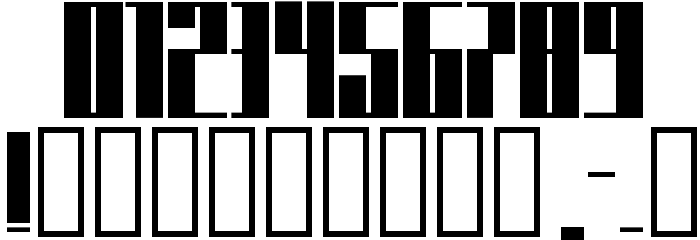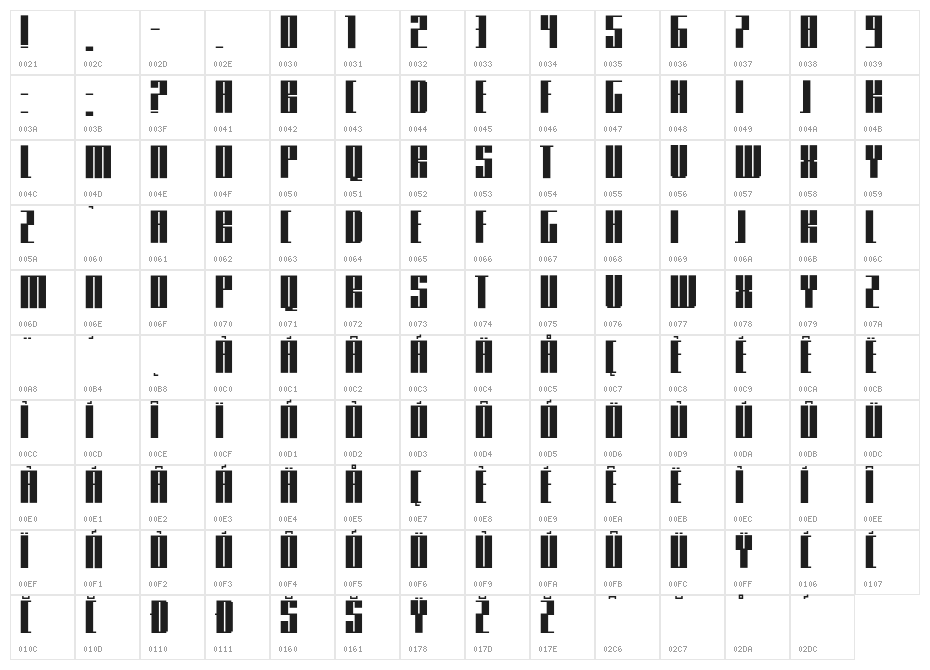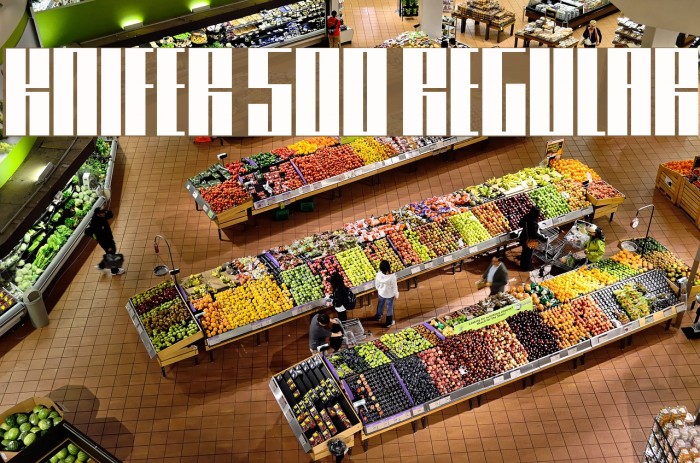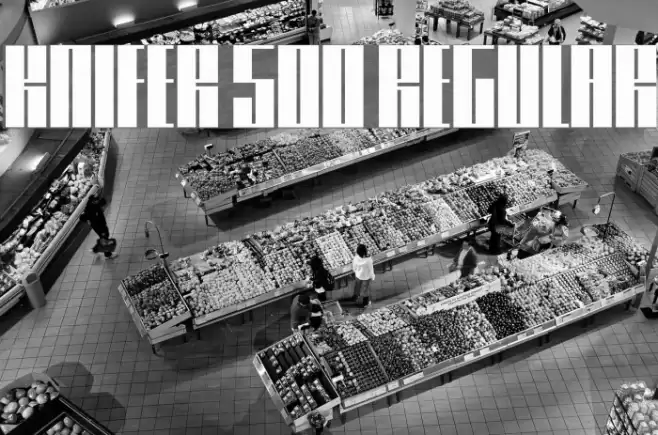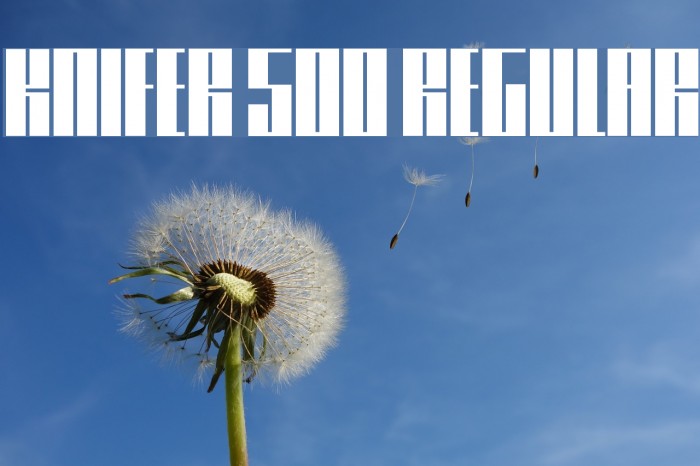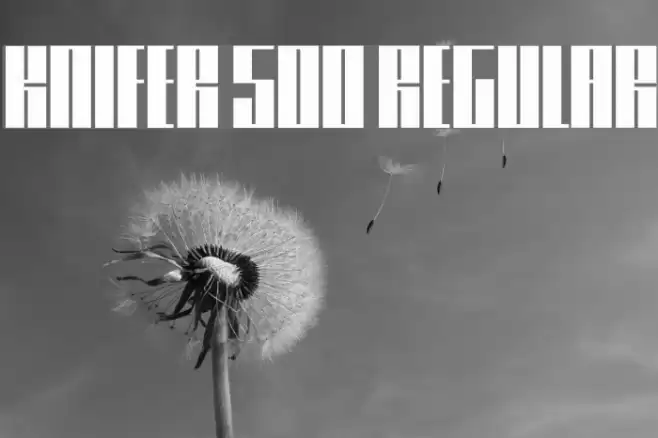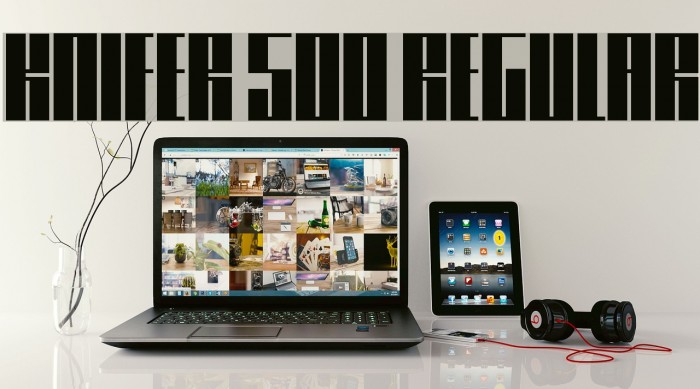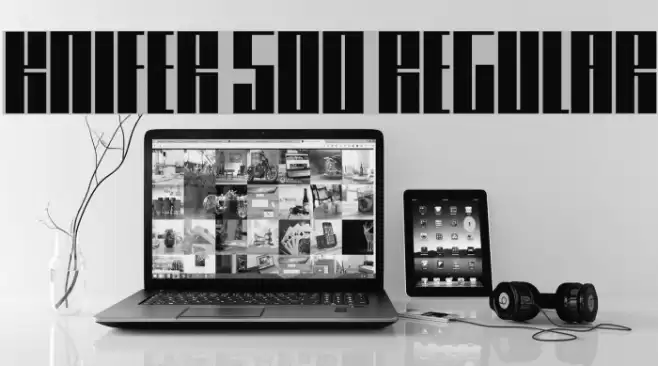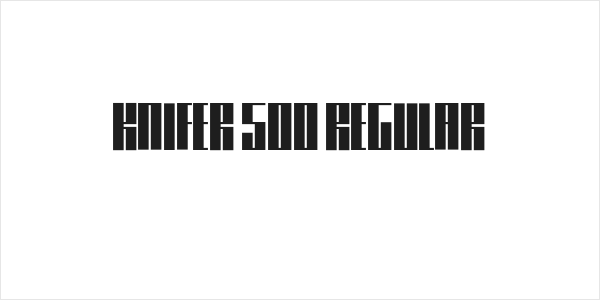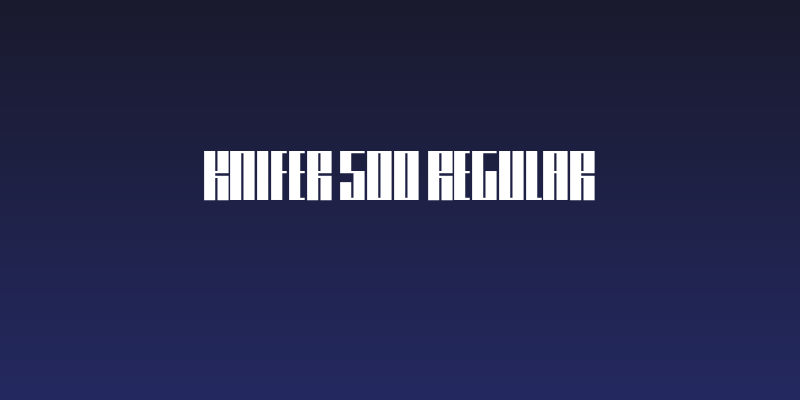
Knifer 500 Regular Font
Knifer 500 Regular Description
This font features a bold and striking design with a strong geometric structure. The characters are constructed with thick, block-like strokes that create a sense of solidity and impact. Each letter is uniform in width, contributing to a cohesive and balanced appearance. The uppercase and lowercase letters maintain a consistent style, enhancing readability while retaining a distinctive aesthetic. The numerals and special characters follow the same design principles, ensuring a harmonious look across all text elements. This font's boldness and unique style make it ideal for projects that require a strong visual presence.
| Proposed Projects | Ideal for posters, headlines, branding, and any project needing a strong visual impact. |